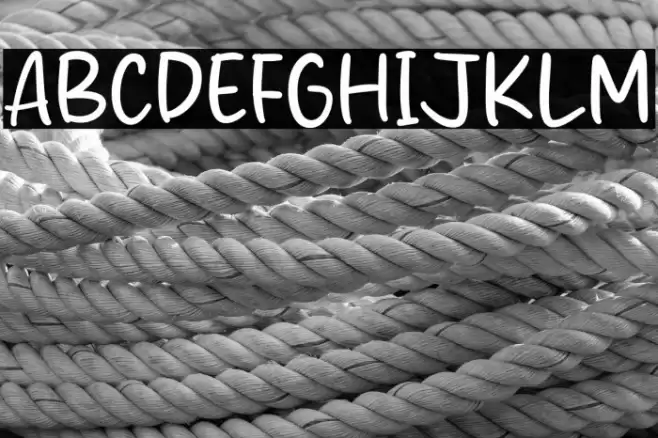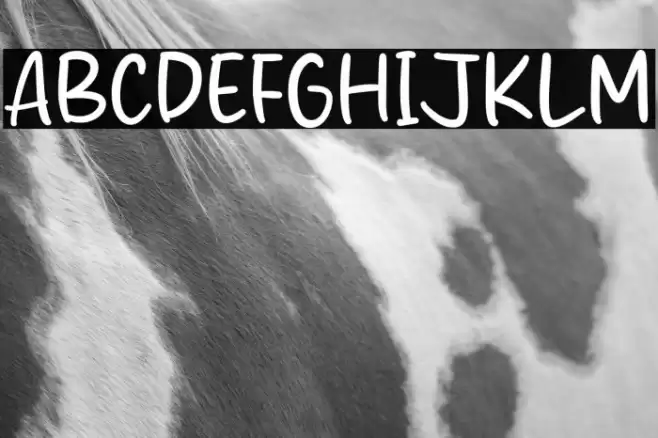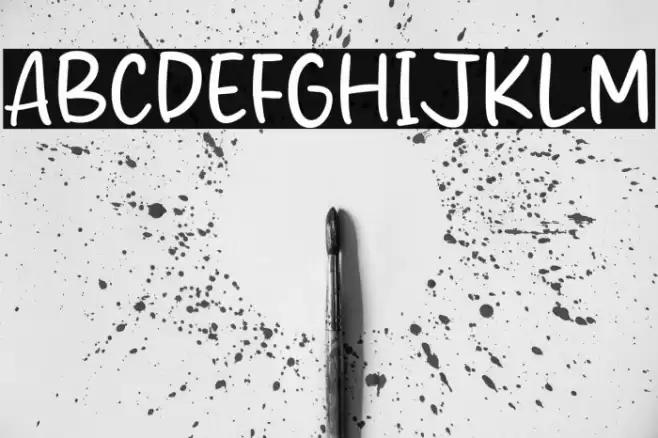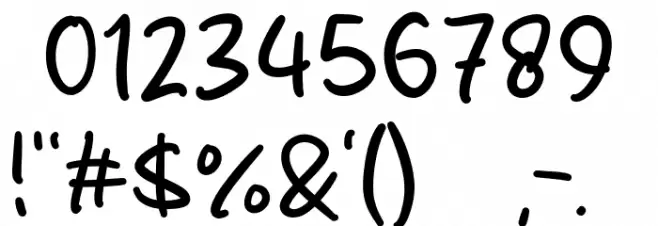
Monstrous Fish Font
Monstrous Fish Description
This font exudes a playful and casual handwritten style, characterized by its smooth, rounded edges and slightly irregular strokes that give it a personal touch. The letters are bold and slightly condensed, providing a sense of warmth and approachability. The uppercase and lowercase letters maintain a consistent style, with a slight slant that adds to the informal feel. Numbers and special characters are crafted with the same playful aesthetic, making them easily readable and visually appealing. This font is perfect for projects that require a friendly and informal tone.
A playful, handwritten font with smooth, rounded edges and a casual style from Uncategorized fonts.
- Font: Monstrous Fish
- Proposed Projects: Ideal for greeting cards, children's books, casual branding, and social media graphics.
- Overall Style: Casual
- Use Case: Headlines, Logos, Informal text